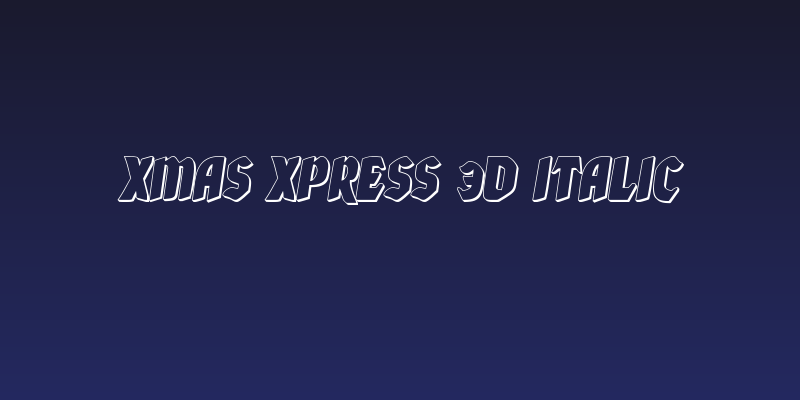
Xmas Xpress 3D Italic Font
Xmas Xpress 3D Italic Description
This font features a bold, three-dimensional design with a playful and festive appearance. The letters are italicized, giving them a dynamic and forward-leaning stance. Each character is outlined, enhancing the 3D effect and providing a sense of depth. The style is reminiscent of holiday themes, making it ideal for seasonal projects. The uppercase and lowercase letters maintain a consistent style, while the numbers and special characters complement the overall design. The font's boldness and unique style make it stand out, perfect for capturing attention.
| Proposed Projects | Ideal for holiday-themed designs, greeting cards, festive banners, and playful branding. |